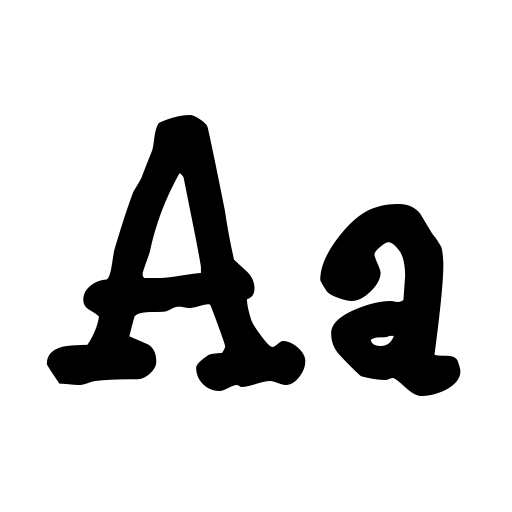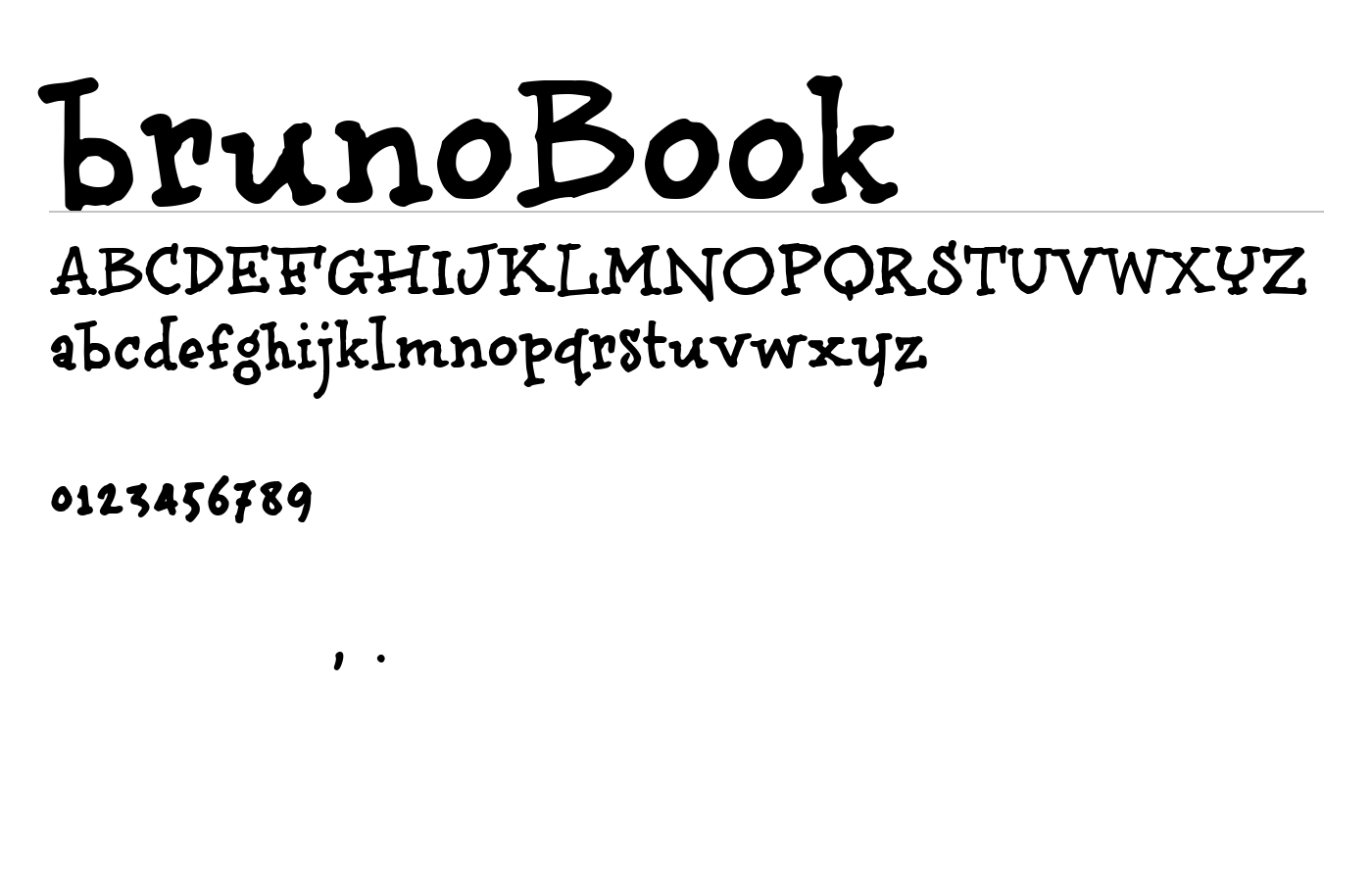
BrunoBook is a playful serif font with a hand-drawn feel, featuring uneven strokes and quirky shapes that give it a casual, friendly personality. Its moderate weight and open letterforms make it legible while maintaining a unique, informal charm, perfect for creative projects, children's books, and brands that want to express approachability and warmth. This font works well in headlines and branding where a distinctive, artistic touch is desired.
brunoBook Font
About brunoBook Font
| Designer | J O E B O B graphics |